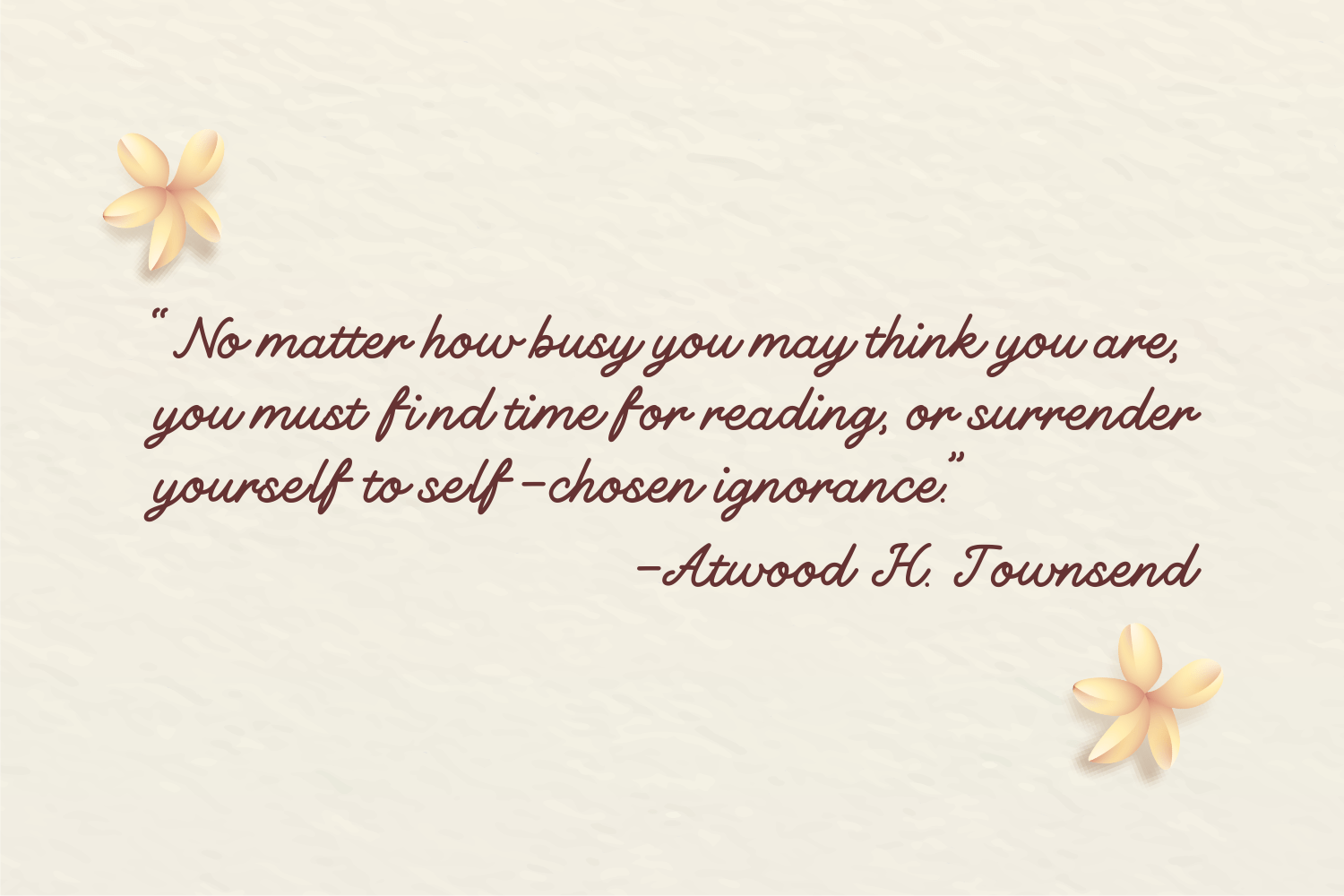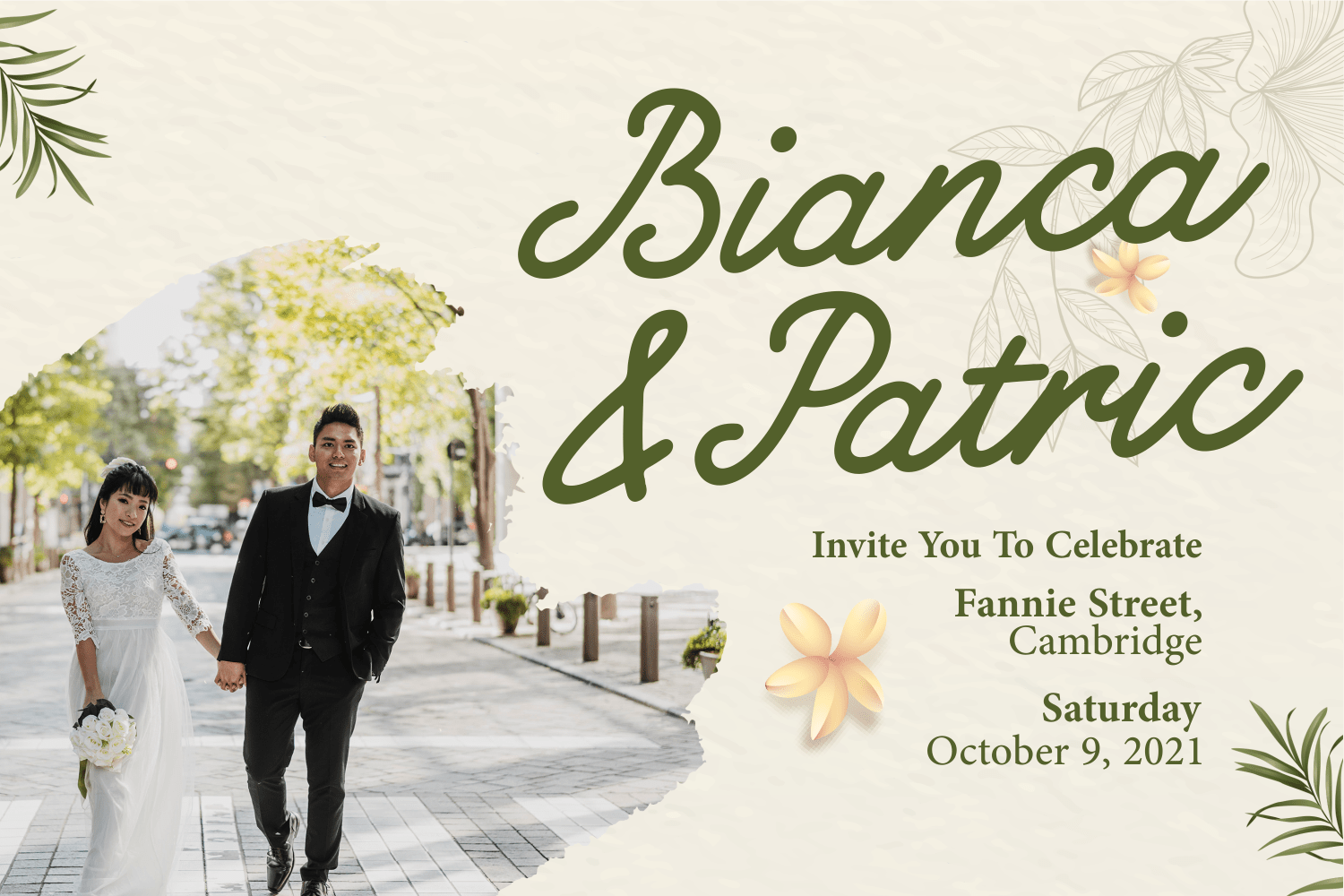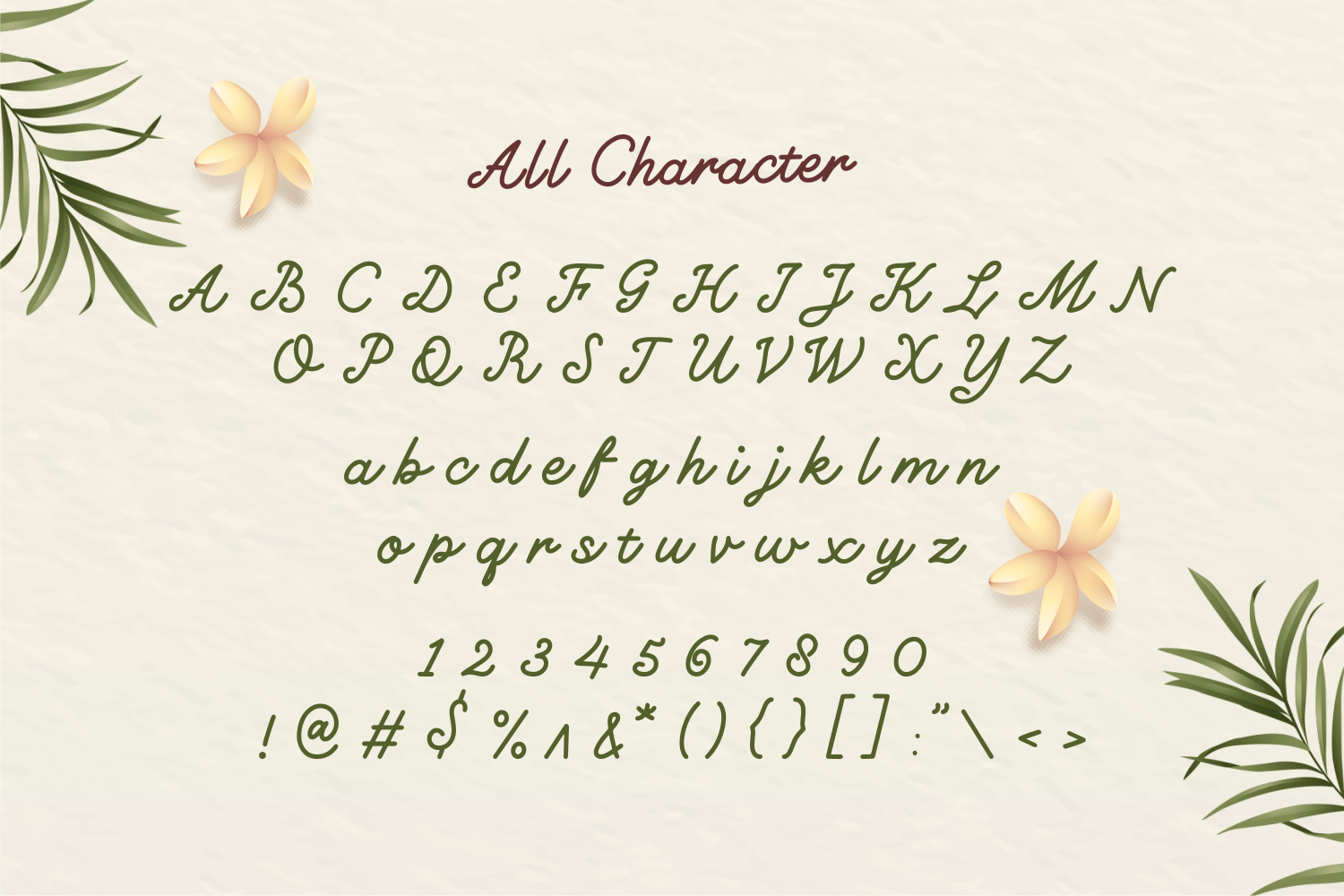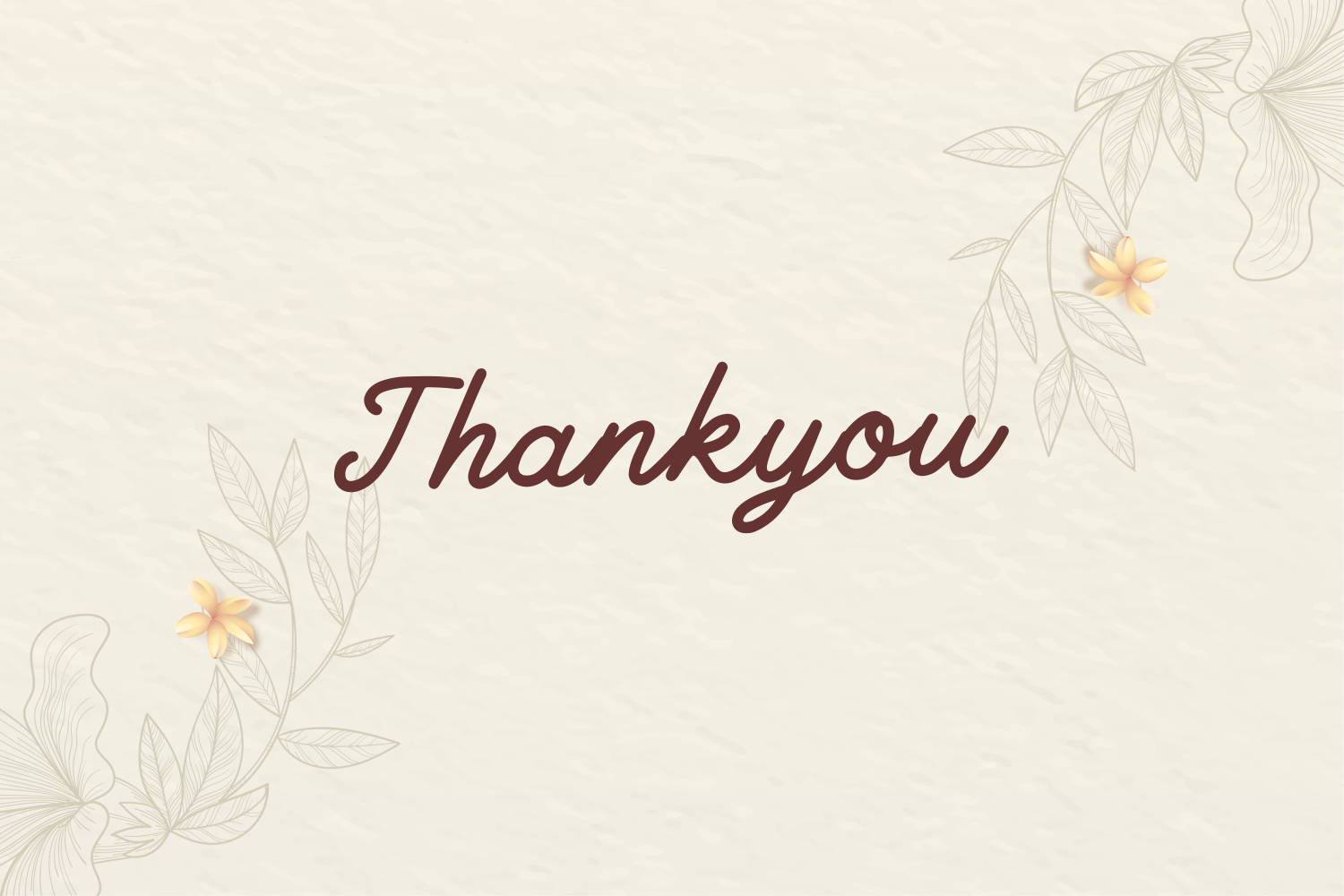
Forberas Font is Monoline Handwritten Script Font. It’s feels playfully nostalgic and delivers an incredible vintage aesthetic. Use this delicate script font to add a special touch to any design idea you can think of!